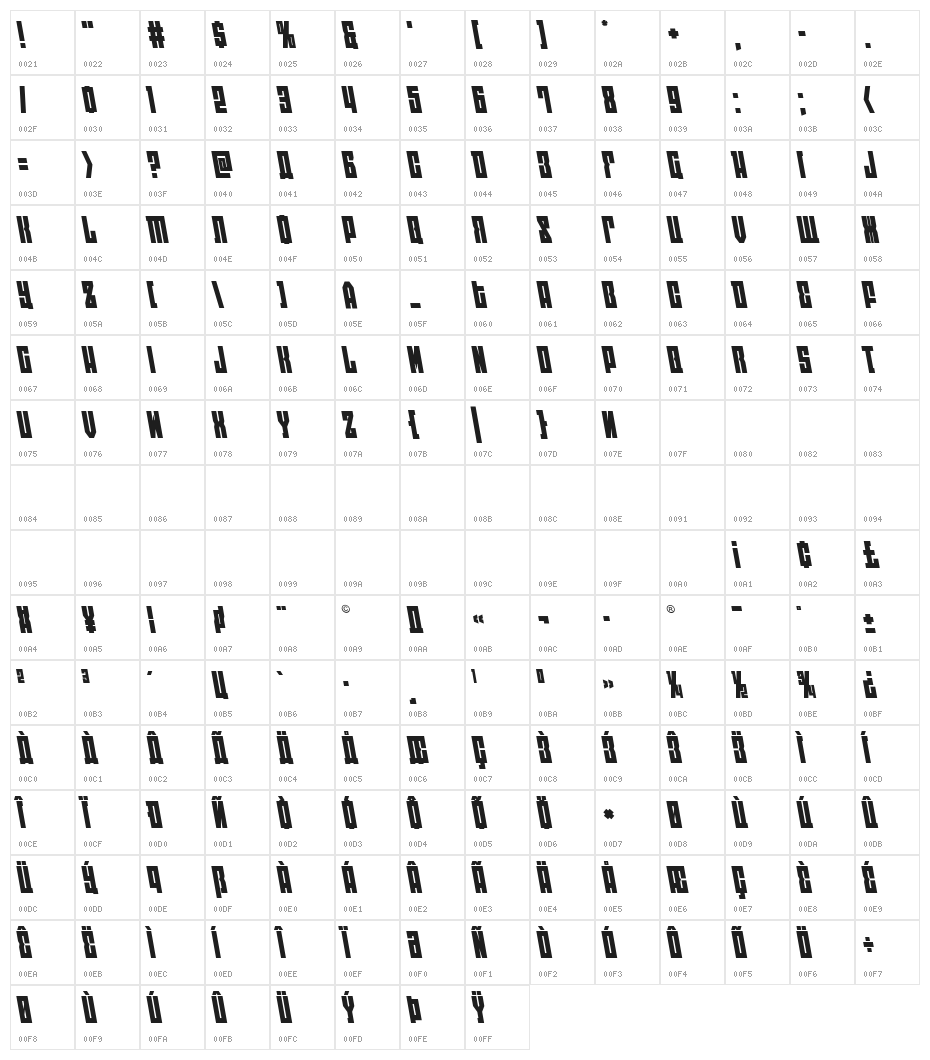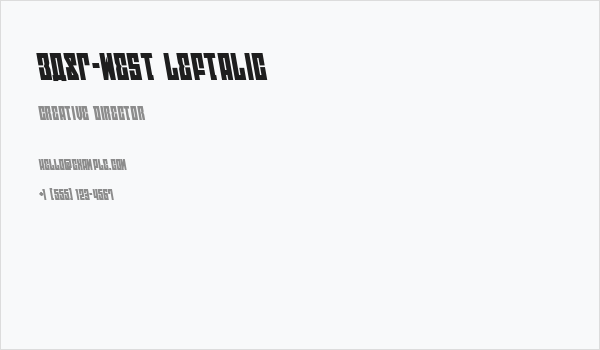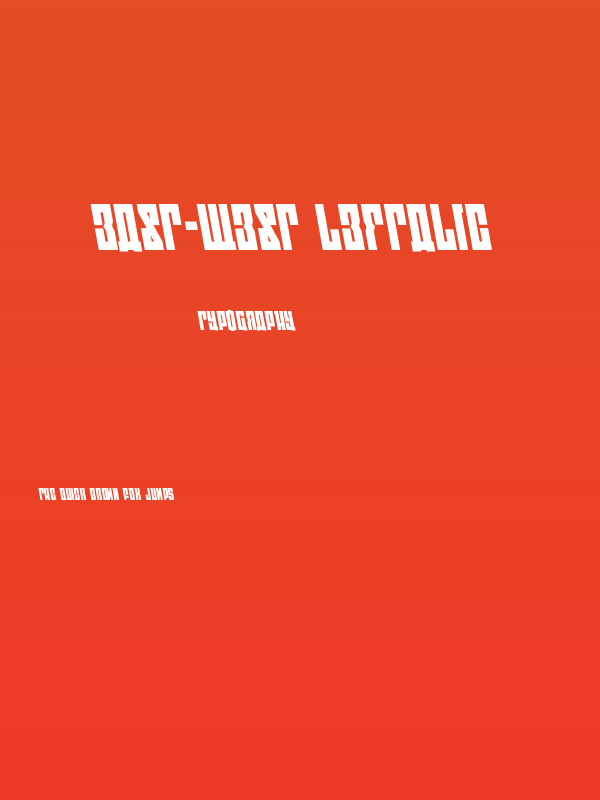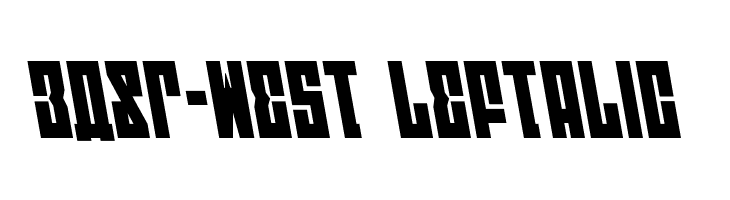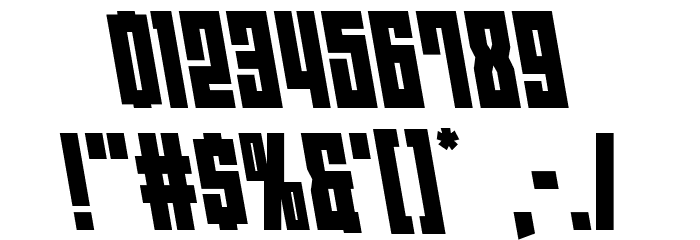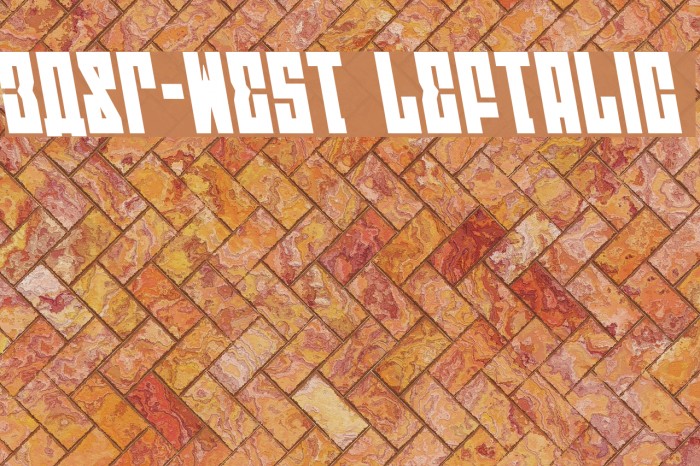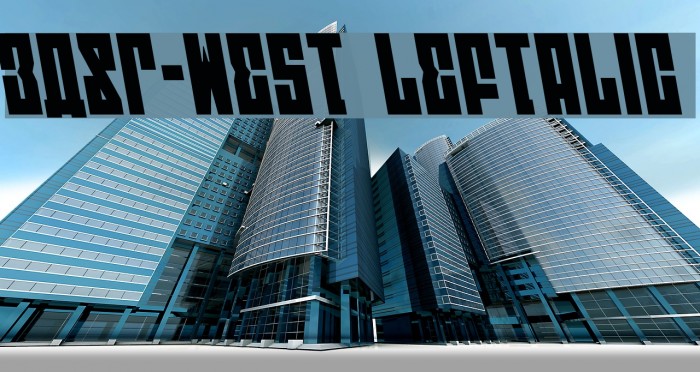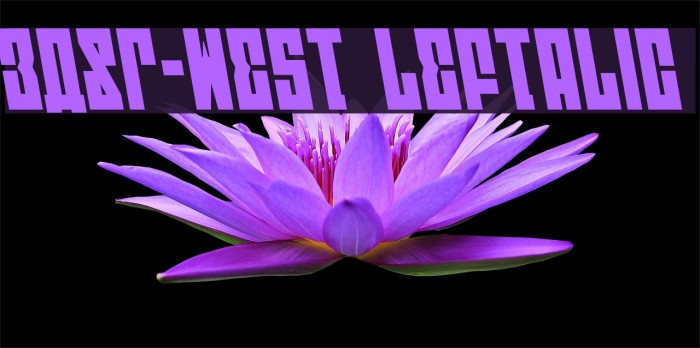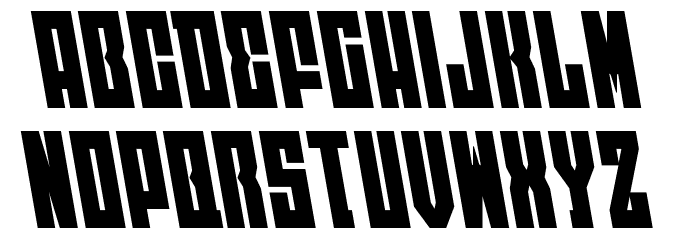
EAST-west Leftalic Font
This font features a bold and impactful design with a strong geometric structure. The characters are sharply angular, giving them a dynamic and aggressive appearance. The uppercase letters are particularly striking, with a blocky and robust form that commands attention. The lowercase letters maintain the same boldness, ensuring consistency throughout the typeface. Numbers and special characters are equally bold, making them suitable for a variety of uses where emphasis is required. The overall style is modern and assertive, ideal for projects that need to convey strength and confidence.
| Proposed Projects | Ideal for sports branding, posters, video game titles, and any project needing a strong, impactful typeface. |